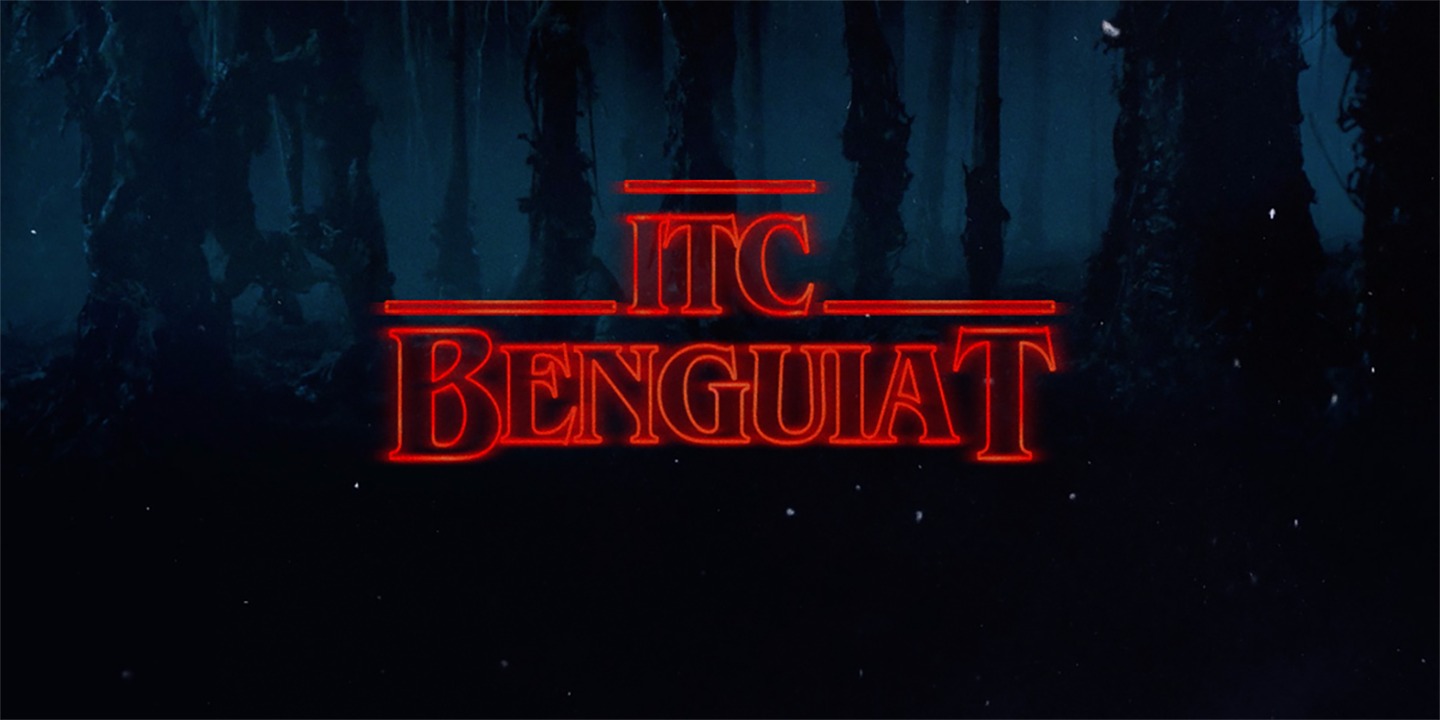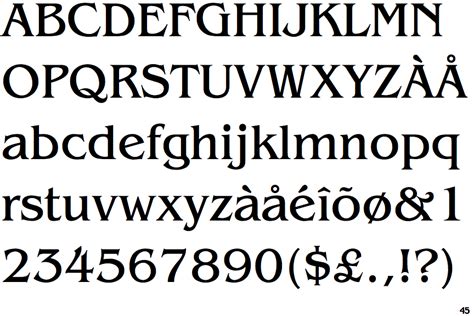
Itc Benguiat Font . Started as an extension of a (probably unrealized) logo design for a friend’s company named aesthetic. It has 12 styles and family.
Web itc benguiat® font field guide | myfonts. Web browse and preview the itc benguiat font family by ed benguiat, a designer of display and headline fonts. Web itc benguiat® font field guide | myfonts. Started as an extension of a (probably unrealized) logo design for a friend’s company named aesthetic.
Itc Benguiat Font - [benguiat at typo berlin 2000] announced in. Web itc benguiat® font field guide | myfonts. Started as an extension of a (probably unrealized) logo design for a friend’s company named aesthetic. International typeface corporation (itc), designers: Web itc benguiat is a roman face with art nouveau influence, designed by edward benguiat and published by itc.
Itc Benguiat Font - Started as an extension of a (probably unrealized) logo design for a friend’s company named aesthetic. Web browse and preview the itc benguiat font family by ed benguiat, a designer of display and headline fonts. [benguiat at typo berlin 2000] announced in. See sample text in different. Web download itcbenguiat for free, view sample text, rating and more on fontsgeek.com.
Itc Benguiat Font - Web browse and preview the itc benguiat font family by ed benguiat, a designer of display and headline fonts. Web itc benguiat in use. International typeface corporation (itc), designers: Web itc benguiat is a roman face with art nouveau influence, designed by edward benguiat and published by itc. [benguiat at typo berlin 2000] announced in.
Itc Benguiat Font - Web itc benguiat in use. It has 12 styles and family. Web itc benguiat is a roman face with art nouveau influence, designed by edward benguiat and published by itc. See sample text in different. Web itc benguiat® font field guide | myfonts.
Itc Benguiat Font - [benguiat at typo berlin 2000] announced in. International typeface corporation (itc), designers: Web itc benguiat in use. Web itc benguiat® font field guide | myfonts. Started as an extension of a (probably unrealized) logo design for a friend’s company named aesthetic.
Itc Benguiat Font - Web itc benguiat in use. Started as an extension of a (probably unrealized) logo design for a friend’s company named aesthetic. Web itc benguiat is a roman face with art nouveau influence, designed by edward benguiat and published by itc. Web download itcbenguiat for free, view sample text, rating and more on fontsgeek.com. Web browse and preview the itc benguiat.
Itc Benguiat Font - Web browse and preview the itc benguiat font family by ed benguiat, a designer of display and headline fonts. Started as an extension of a (probably unrealized) logo design for a friend’s company named aesthetic. Web download itcbenguiat for free, view sample text, rating and more on fontsgeek.com. See sample text in different. Web itc benguiat in use.
Itc Benguiat Font - [benguiat at typo berlin 2000] announced in. Web download itcbenguiat for free, view sample text, rating and more on fontsgeek.com. Web itc benguiat in use. It has 12 styles and family. Web itc benguiat® font field guide | myfonts.
Itc Benguiat Font - Web itc benguiat is a roman face with art nouveau influence, designed by edward benguiat and published by itc. See sample text in different. Web itc benguiat® font field guide | myfonts. It has 12 styles and family. Web itc benguiat in use.
Itc Benguiat Font - See sample text in different. Started as an extension of a (probably unrealized) logo design for a friend’s company named aesthetic. Web itc benguiat® font field guide | myfonts. It has 12 styles and family. [benguiat at typo berlin 2000] announced in.
Itc Benguiat Font - Started as an extension of a (probably unrealized) logo design for a friend’s company named aesthetic. Web itc benguiat is a roman face with art nouveau influence, designed by edward benguiat and published by itc. It has 12 styles and family. Web download itcbenguiat for free, view sample text, rating and more on fontsgeek.com. Web itc benguiat in use.
Itc Benguiat Font - Web itc benguiat in use. Web download itcbenguiat for free, view sample text, rating and more on fontsgeek.com. International typeface corporation (itc), designers: See sample text in different. It has 12 styles and family.
Itc Benguiat Font - See sample text in different. Web itc benguiat® font field guide | myfonts. Web itc benguiat is a roman face with art nouveau influence, designed by edward benguiat and published by itc. [benguiat at typo berlin 2000] announced in. It has 12 styles and family.
Itc Benguiat Font - See sample text in different. [benguiat at typo berlin 2000] announced in. Web itc benguiat is a roman face with art nouveau influence, designed by edward benguiat and published by itc. Started as an extension of a (probably unrealized) logo design for a friend’s company named aesthetic. Web itc benguiat® font field guide | myfonts.